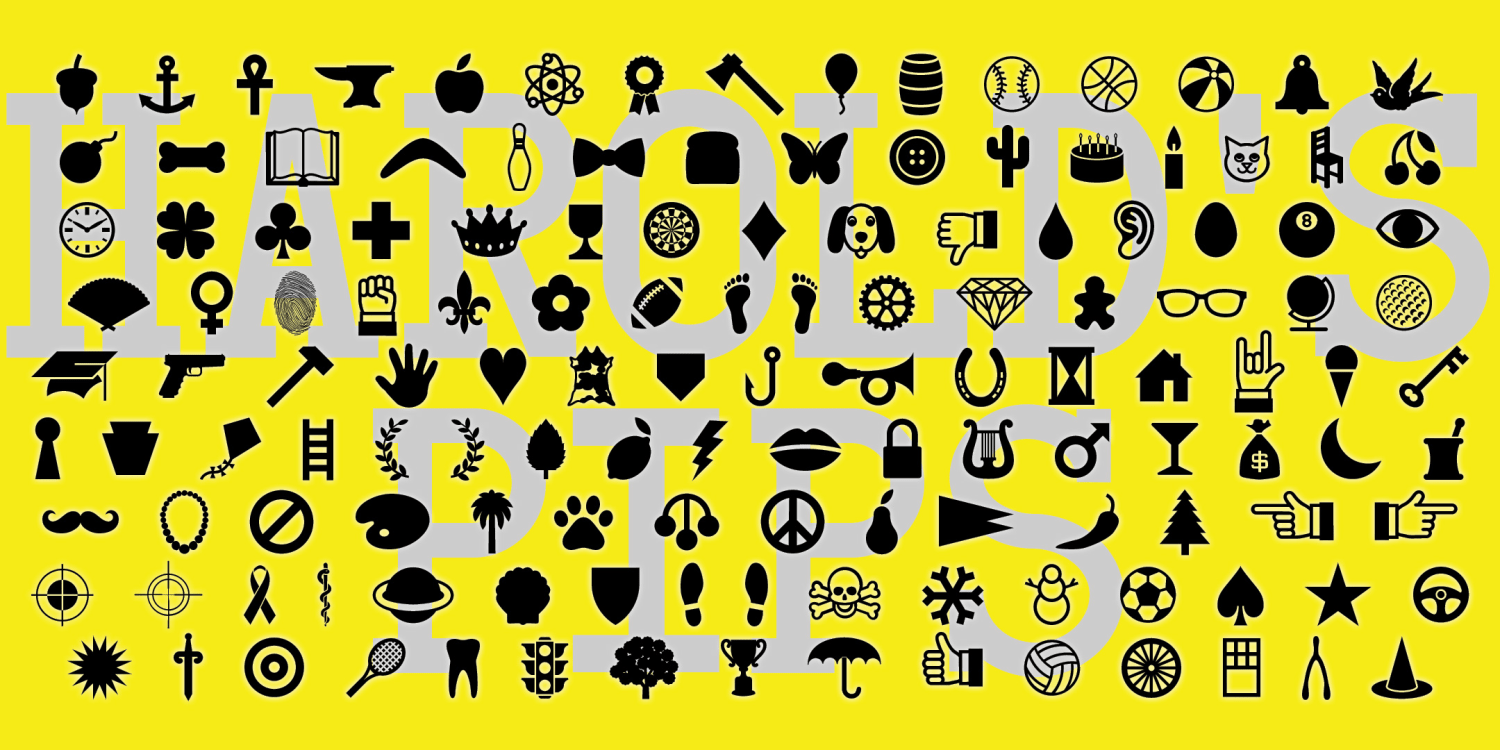
Harold's Pips
Harold's Pips is a dingbat font of 52 handy symbols that can be accessed as easily as typing a word! Over 130 cool and useful dingbats at your fingertips.
Using the Opentype version in applications that support the discretionary ligatures feature, you simply type the name of the image and it appears! Easy and fun to use. Otherwise, use your character map utility or similar to view and select the pictures.
These pips were was inspired by an episode of The Simpsons in which Fat Tony's gang play cards with a special deck with extra aces in suits such as cherries and stars. So with this font you could make a deck of 52 aces!